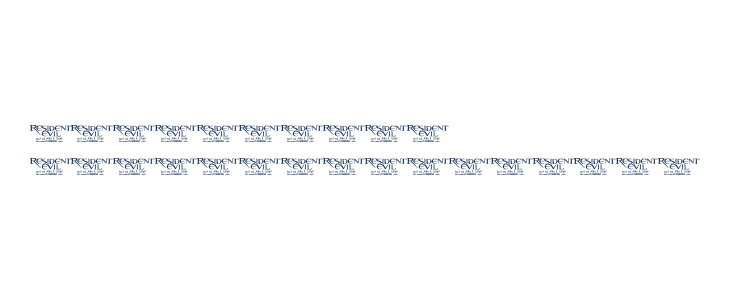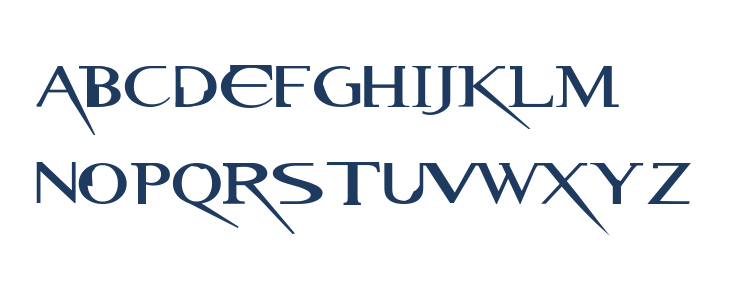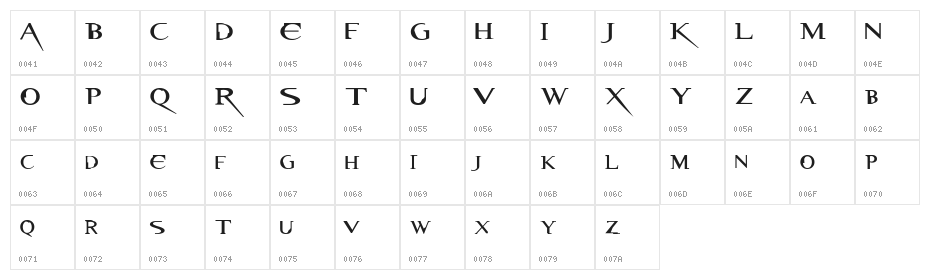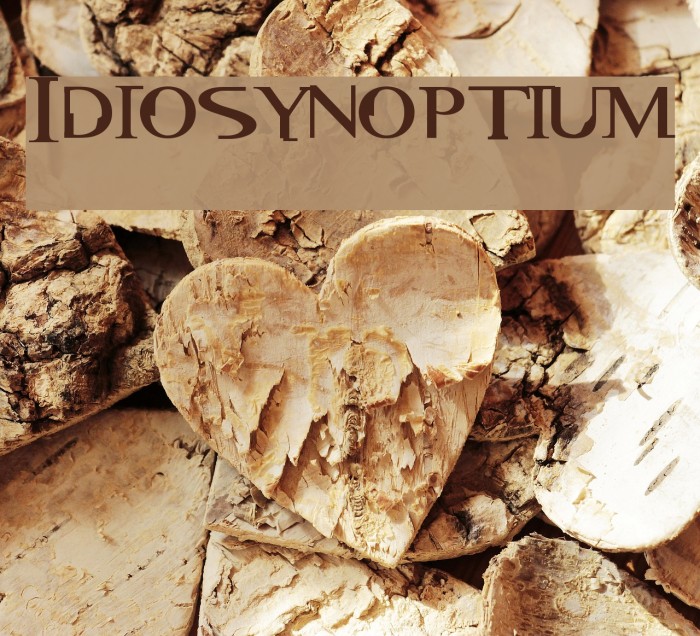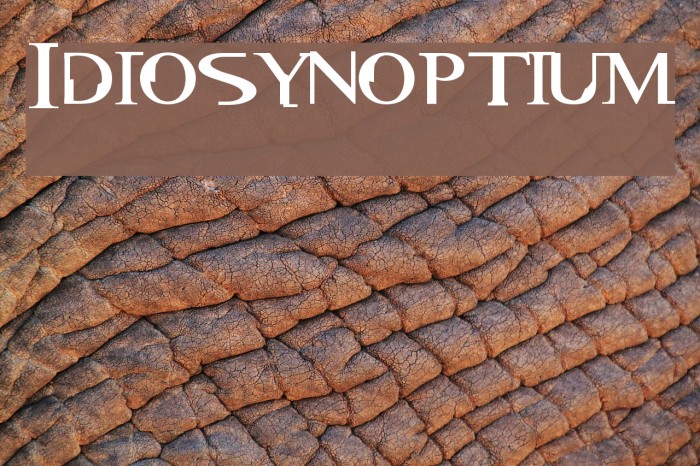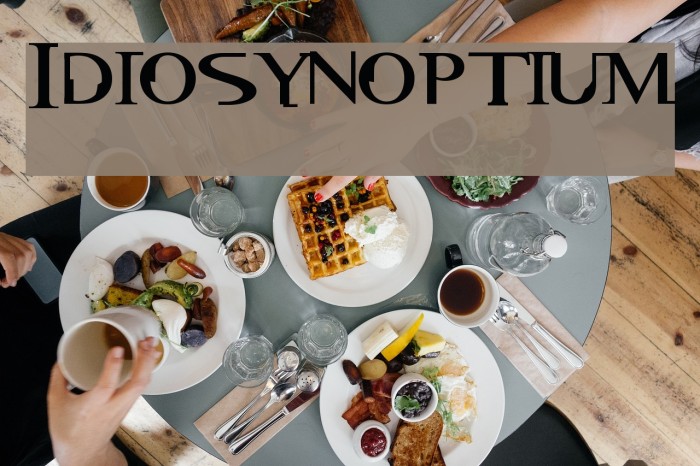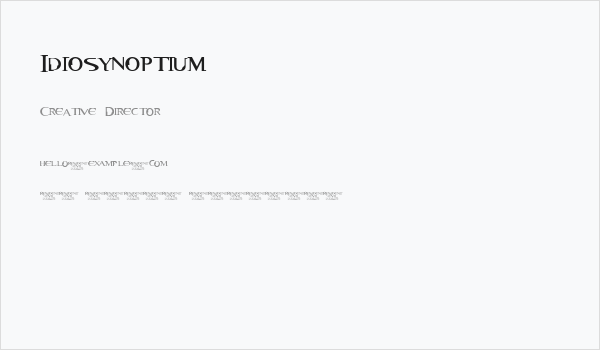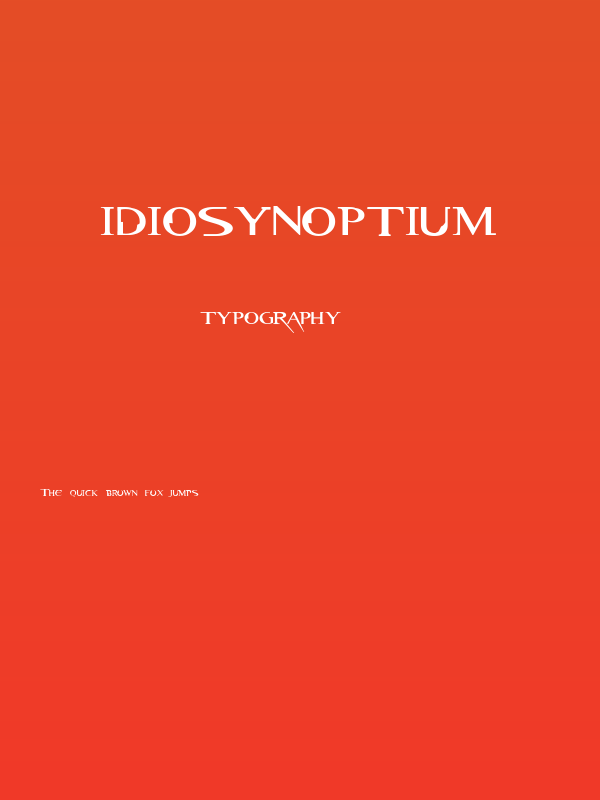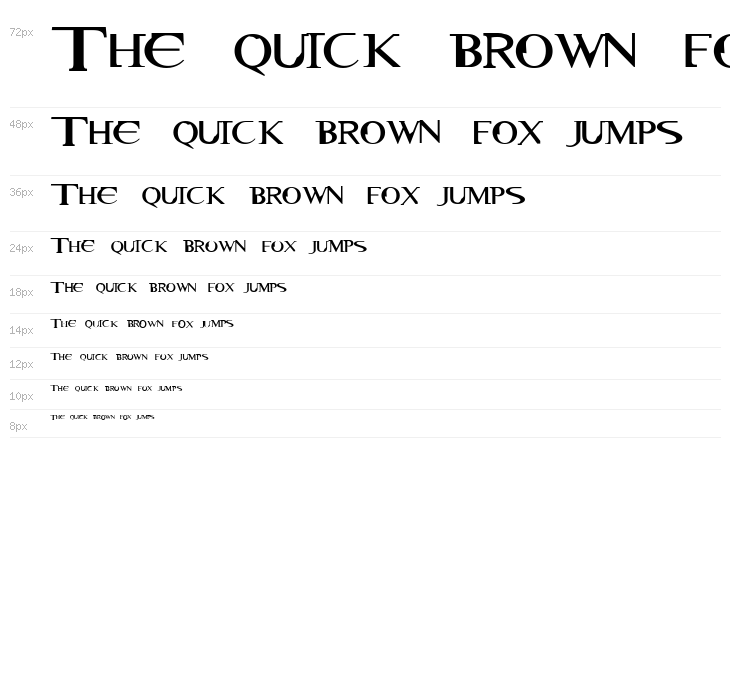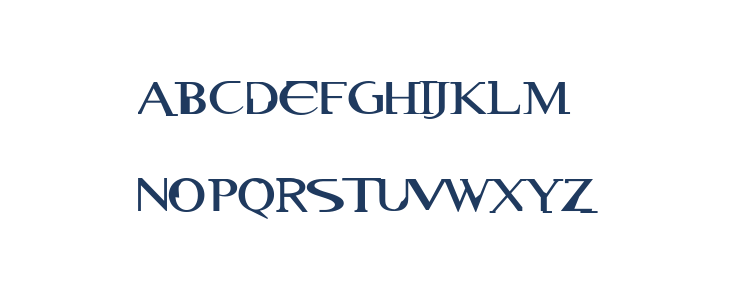
Idiosynoptium Font
Idiosynoptium Description
This font features a bold and striking design with sharp, angular serifs and a distinct gothic influence. The characters exhibit a unique combination of thick and thin strokes, creating a dramatic contrast that enhances its visual impact. The uppercase letters are particularly notable for their elongated and pointed serifs, giving the font a menacing and edgy appearance. The overall style is reminiscent of classic horror themes, making it ideal for projects that require a sense of suspense or mystery. The font's design is both decorative and functional, suitable for various creative applications.
| Name | Idiosynoptium |
| Overall Style | Gothic, Decorative |
| Proposed Projects | Ideal for horror-themed posters, video game titles, movie covers, and branding for suspenseful or mysterious content. |